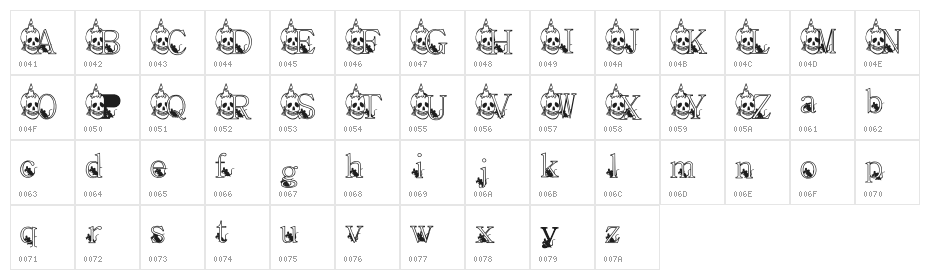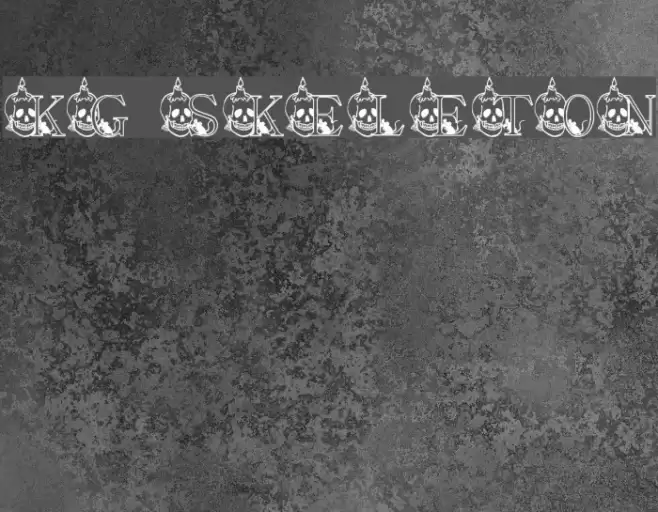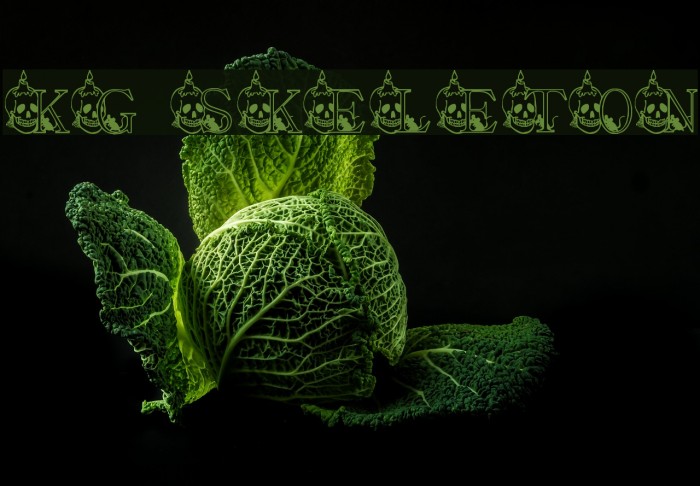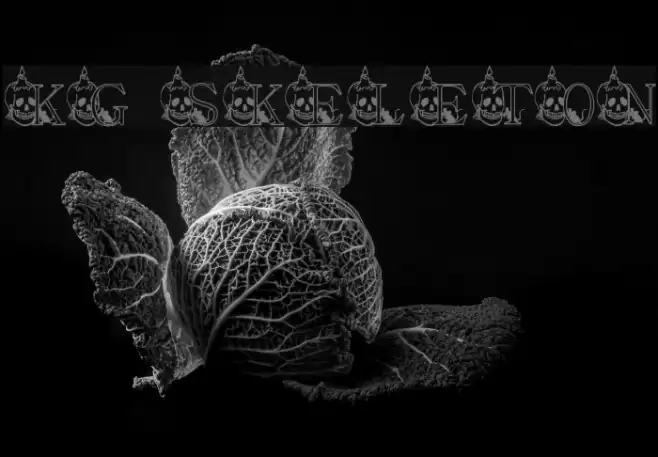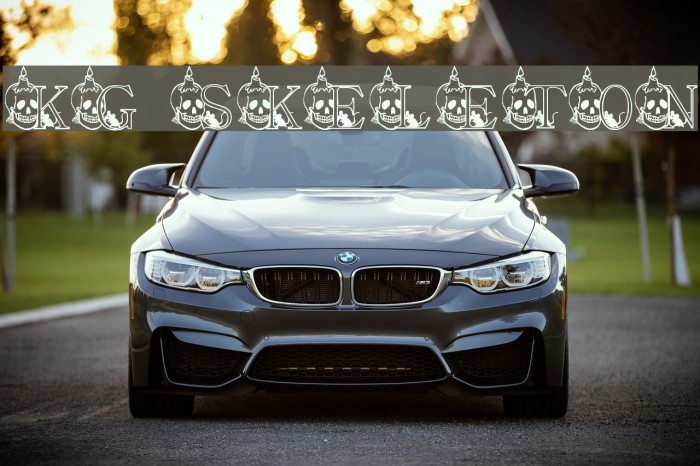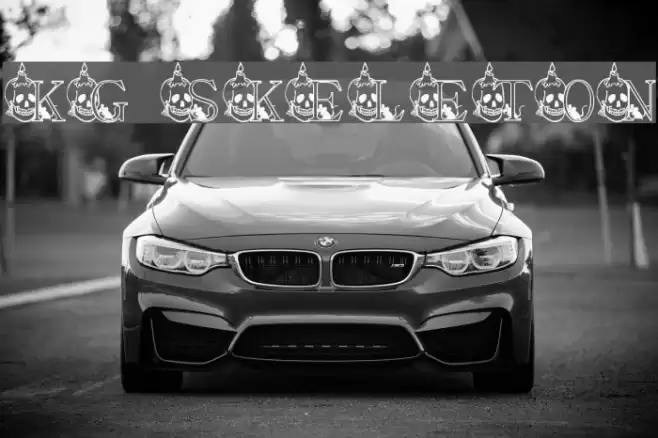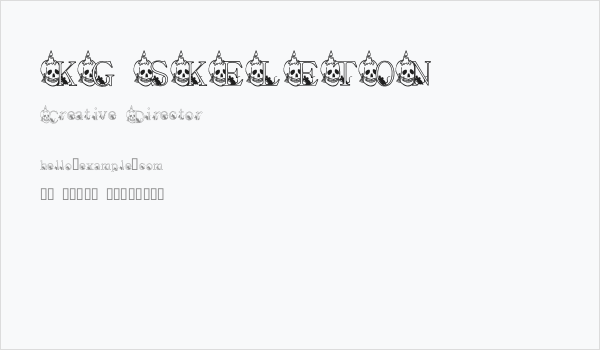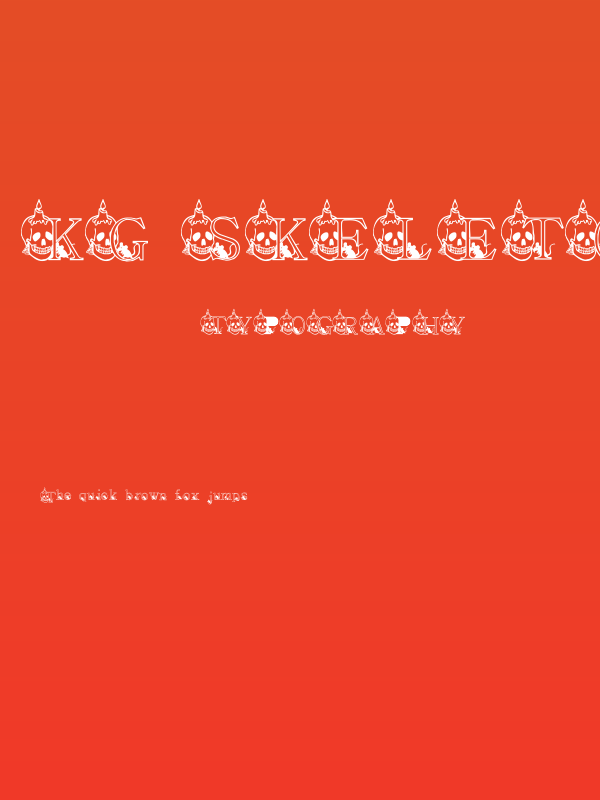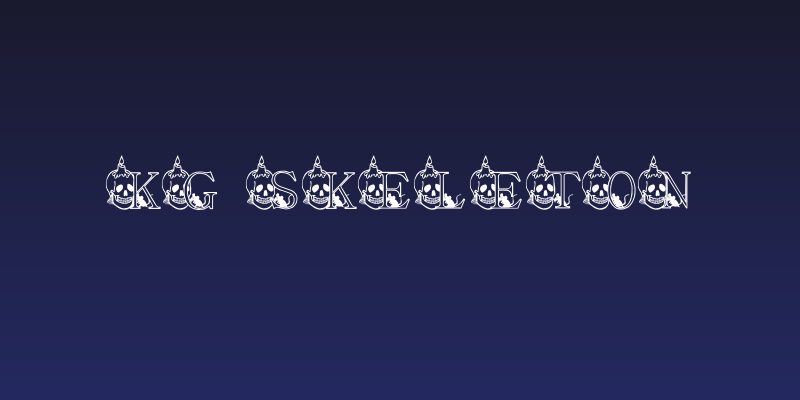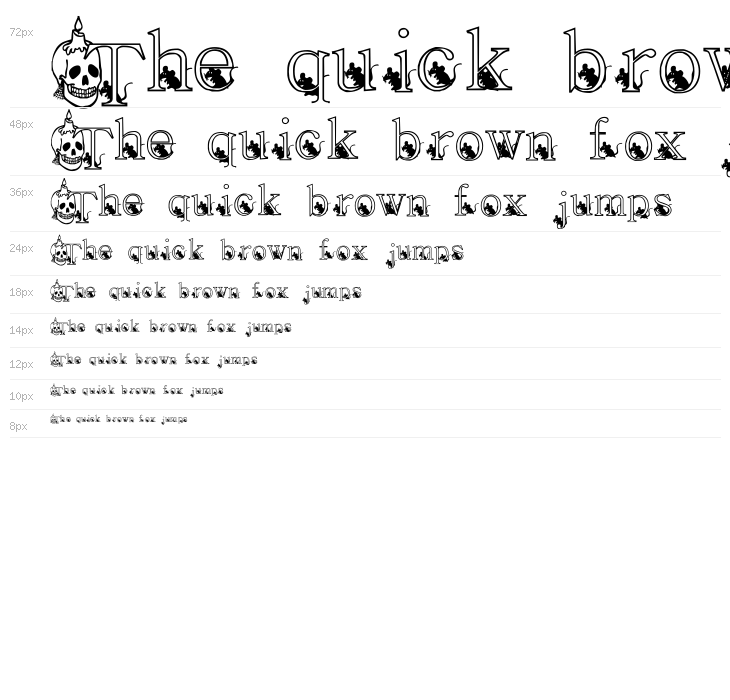
KG SKELETON Font
KG SKELETON Description
This font features a unique and playful design with Halloween-themed elements integrated into each character. The uppercase letters are adorned with whimsical skulls and bats, creating a spooky yet fun appearance. The lowercase letters maintain a more traditional serif style but are complemented by subtle decorative elements that enhance the Halloween theme. The numbers and special characters follow the same design principles, ensuring consistency across all glyphs. This font is perfect for seasonal projects, particularly those related to Halloween or other spooky occasions.
| Proposed Projects | Ideal for Halloween invitations, party decorations, themed posters, and children's event materials. |